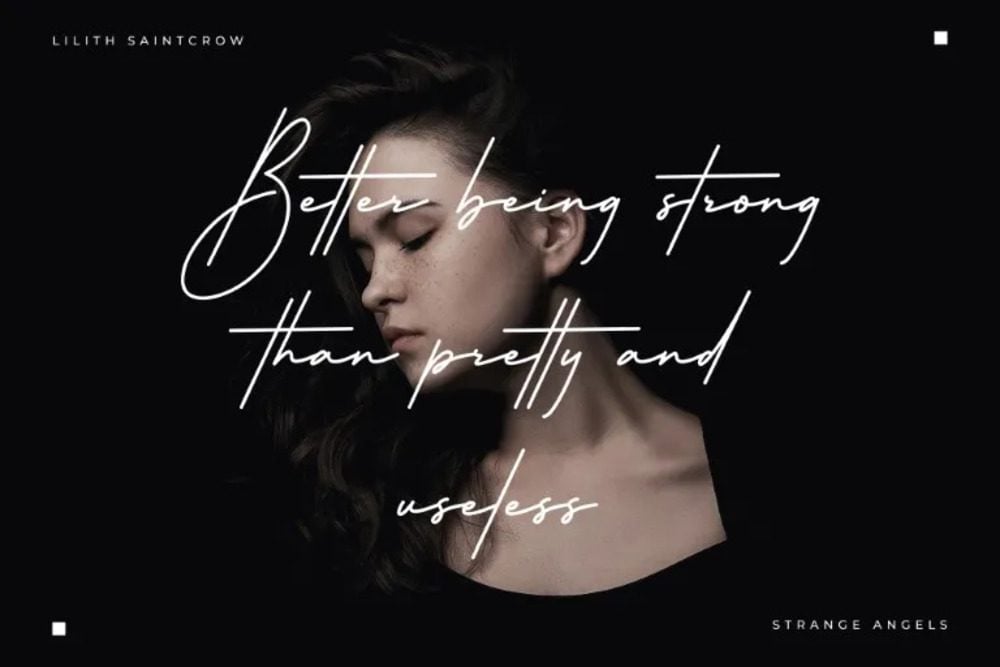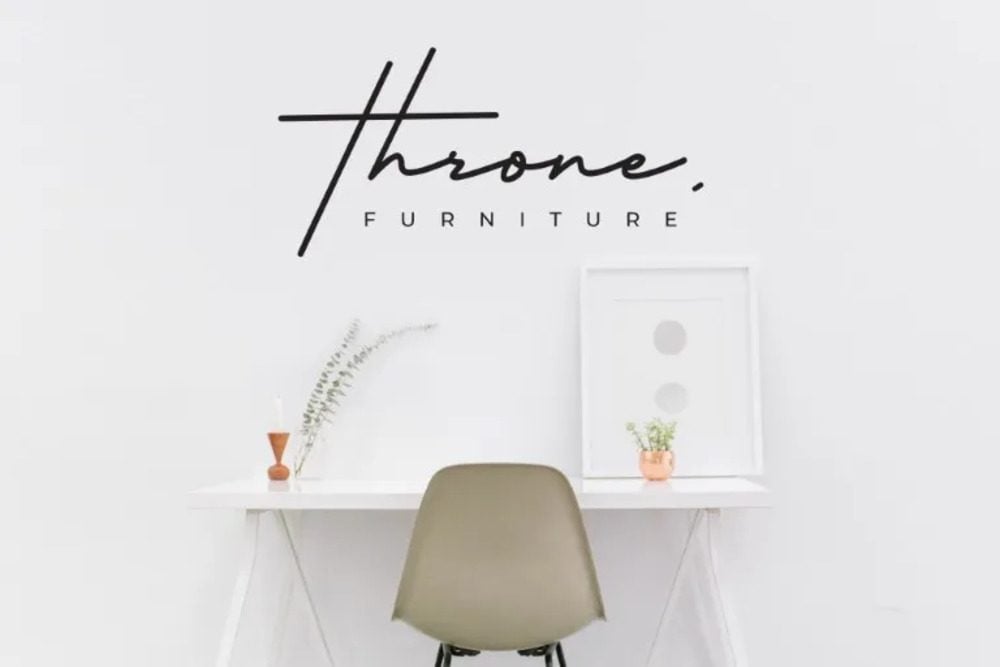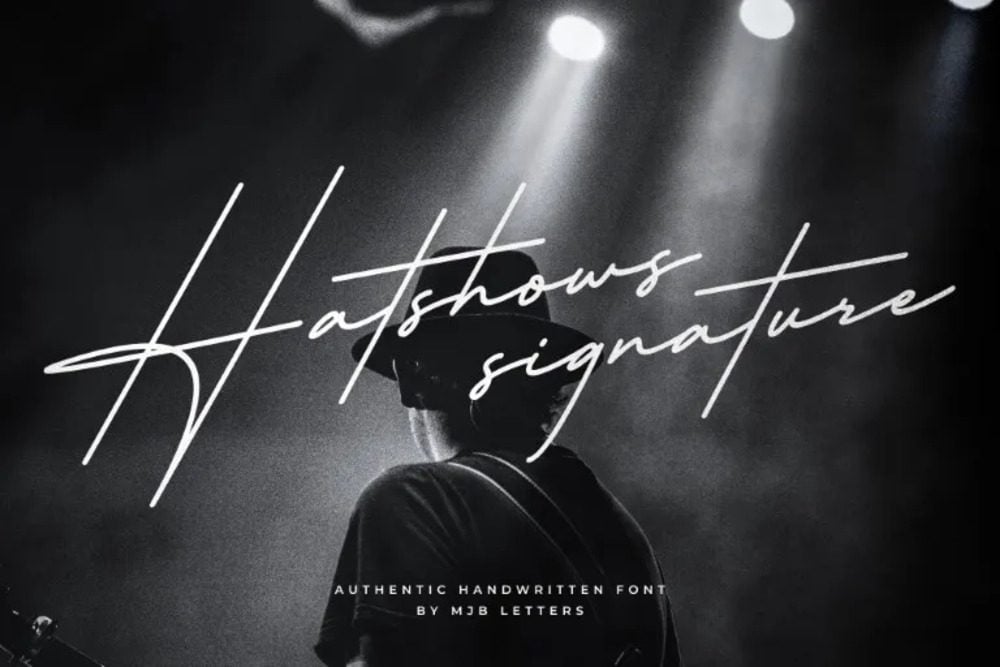
Hatshows Signature Font
Hatshows Signature Font is a bold and modern script typeface with a dynamic handwritten style. Featuring smooth, sweeping strokes and a natural flow, it’s perfect for creating striking logos, branding, fashion designs, and stylish invitations. Hatshows offers a collection of ligatures and alternates, making it versatile and easy to customize. This font brings a confident and trendy touch to any project, blending contemporary flair with the charm of personal handwriting.